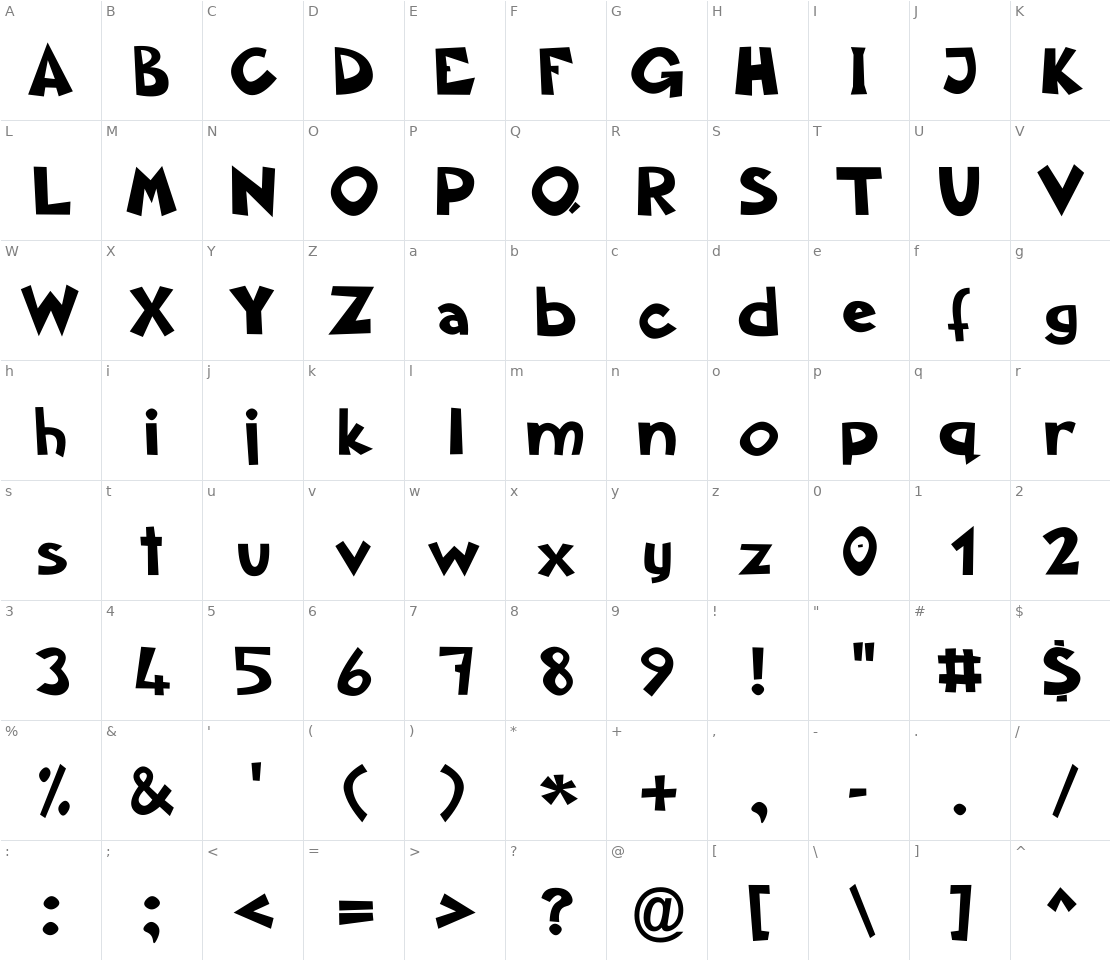
Aklatanic TSO
by Tomasz Dudziak
Aklatanic TSO is a heavy, rounded display face from Tomasz Dudziak with thick, pillowy letterforms that carry a playful, slightly quirky personality. Everything about it feels deliberately chunky, with soft corners and generous proportions that keep it friendly even at its heaviest. Best at large sizes for headlines, posters, and branding where you want bold presence with a lighthearted streak.